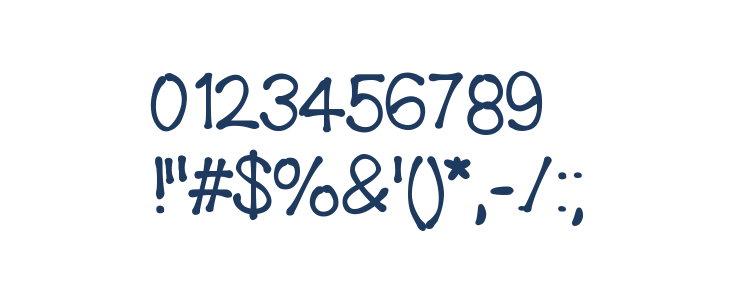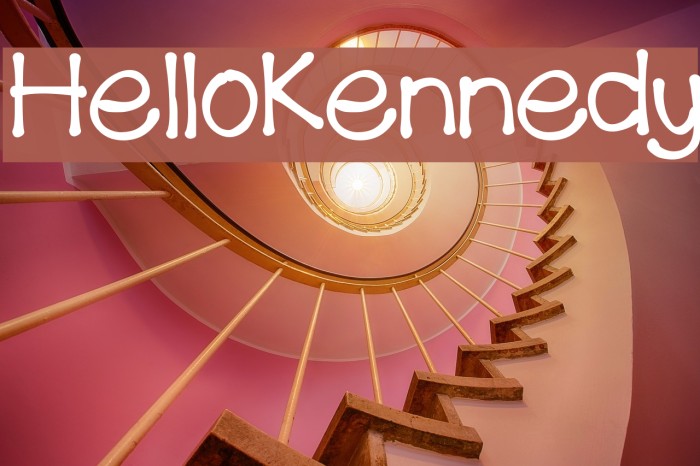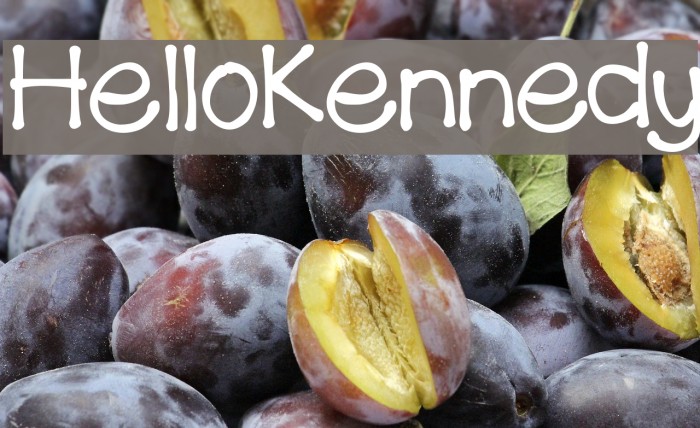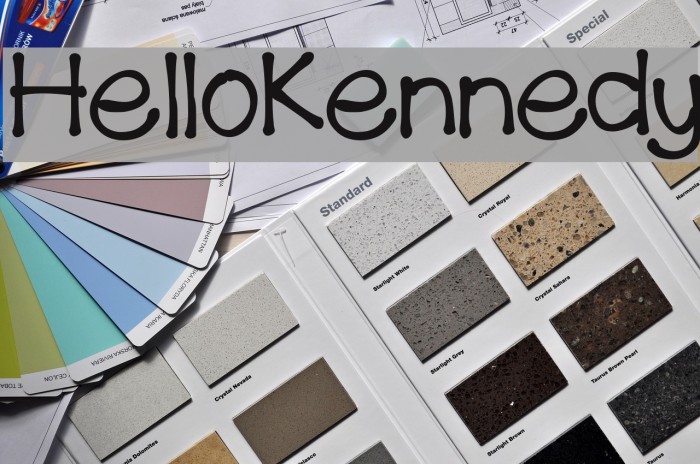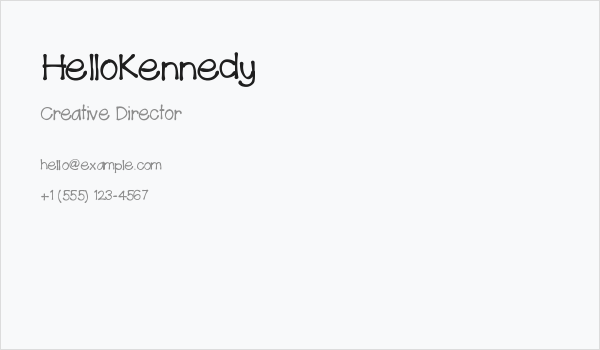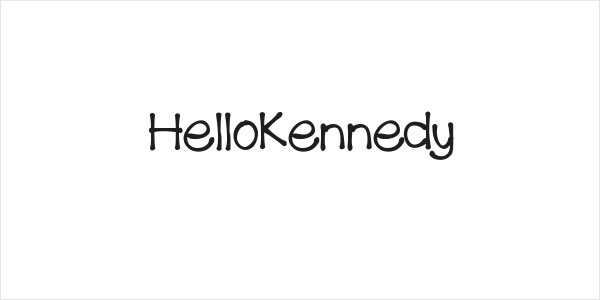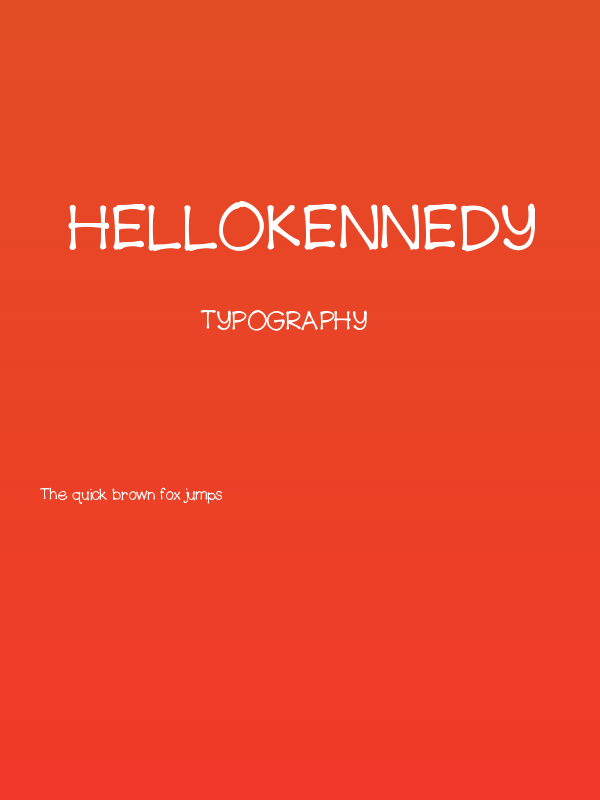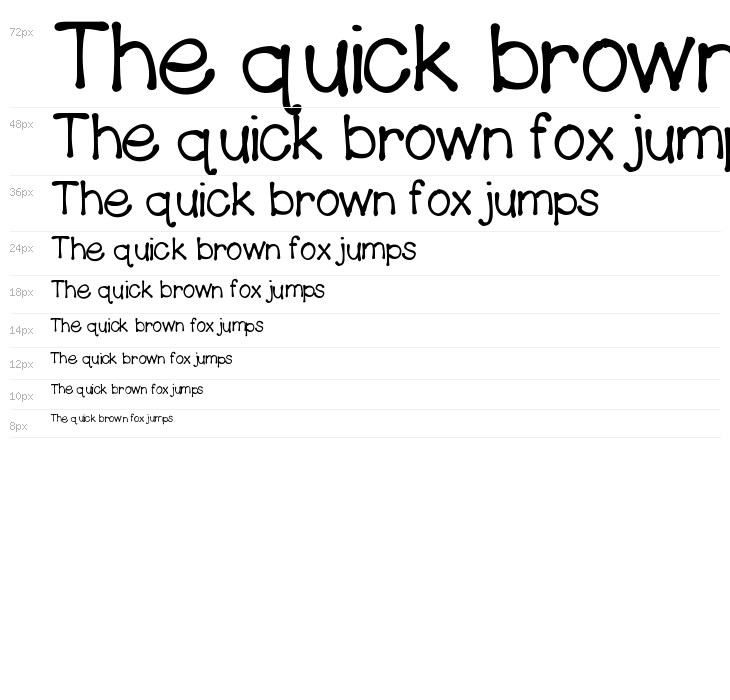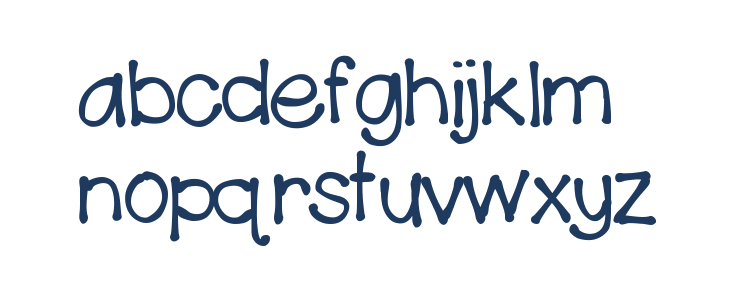
HelloKennedy Font
HelloKennedy Description
This playful and informal font features a handwritten style with rounded edges and a casual appearance. The characters are slightly irregular, giving it a friendly and approachable feel. The uppercase and lowercase letters maintain a consistent style, with the lowercase letters having a slightly larger x-height. The numerals and special characters are designed to match the overall playful aesthetic, making it suitable for creative and informal projects. The font's unique style is characterized by its bold strokes and slightly uneven baseline, adding to its charm and personality.
| Overall Style | Playful |
| Use Case | Headlines, Logos, Informal Text |
| Proposed Projects | Ideal for children's books, greeting cards, playful branding, and informal invitations. |